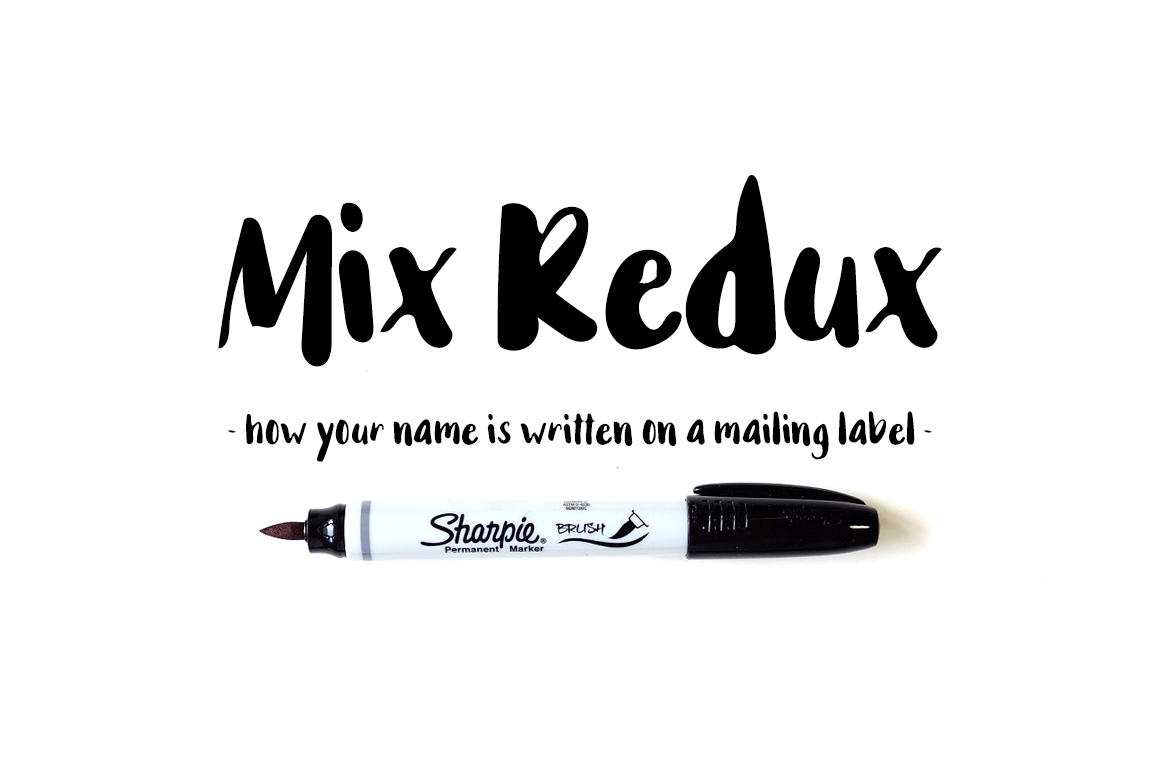
Redux — A Handwritten Font
Mix Redux is a clean and stylish handwritten font with a DIY aesthetic. Digitized from glyphs handwritten with a Sharpie brush pen, this font is perfect for handmade and craft-themed projects. With multilingual support and extended alphabet and accented characters, Mix Redux is versatile enough to be used in a wide range of design projects. From ink to pixel , this font brings a touch of handmade charm to any project.
- ABCDEFGHIJKLMNOPQRSTUVWXYZ
- 0123456789 !@$#%^&*()`~♥❤✿•
- ÷×+−±≈=≠≥≤[]:;'",.|/?{}“”‘’-–—_…©®™«»°²³¡¿₱¢€£¥½¼¾¶§№
- ÁÀÂÄÃÅĂĄÆĆČÇÐÉÈÊËĘÍÌÎÏŁŃÑÓÒÔÖÕØŐŒŚŠȘȚÚÙÛÜŰÝŸŹŽŻÞ
- áàâäãåăąæćčçðéèêëęíìîïłńñóòôöõøőœśšșțúùûüűýÿźžżþß